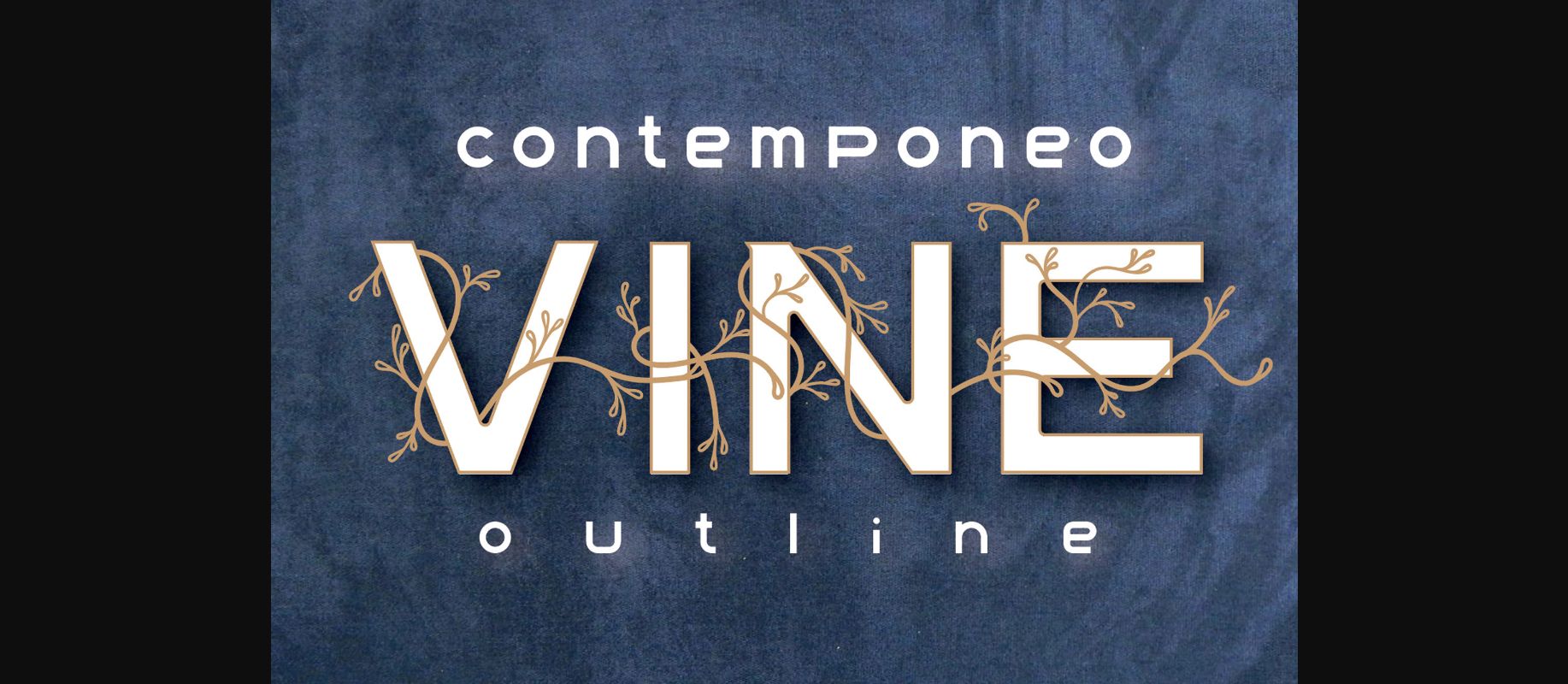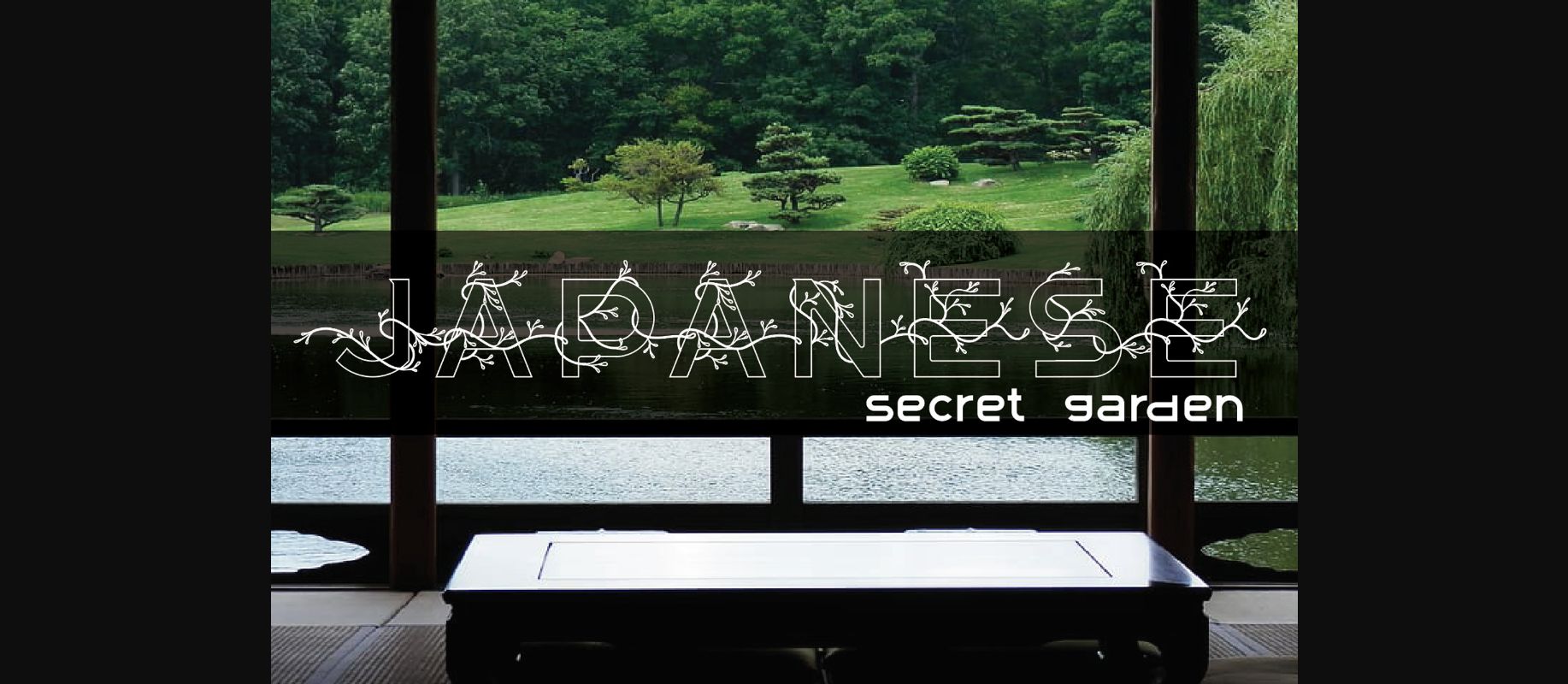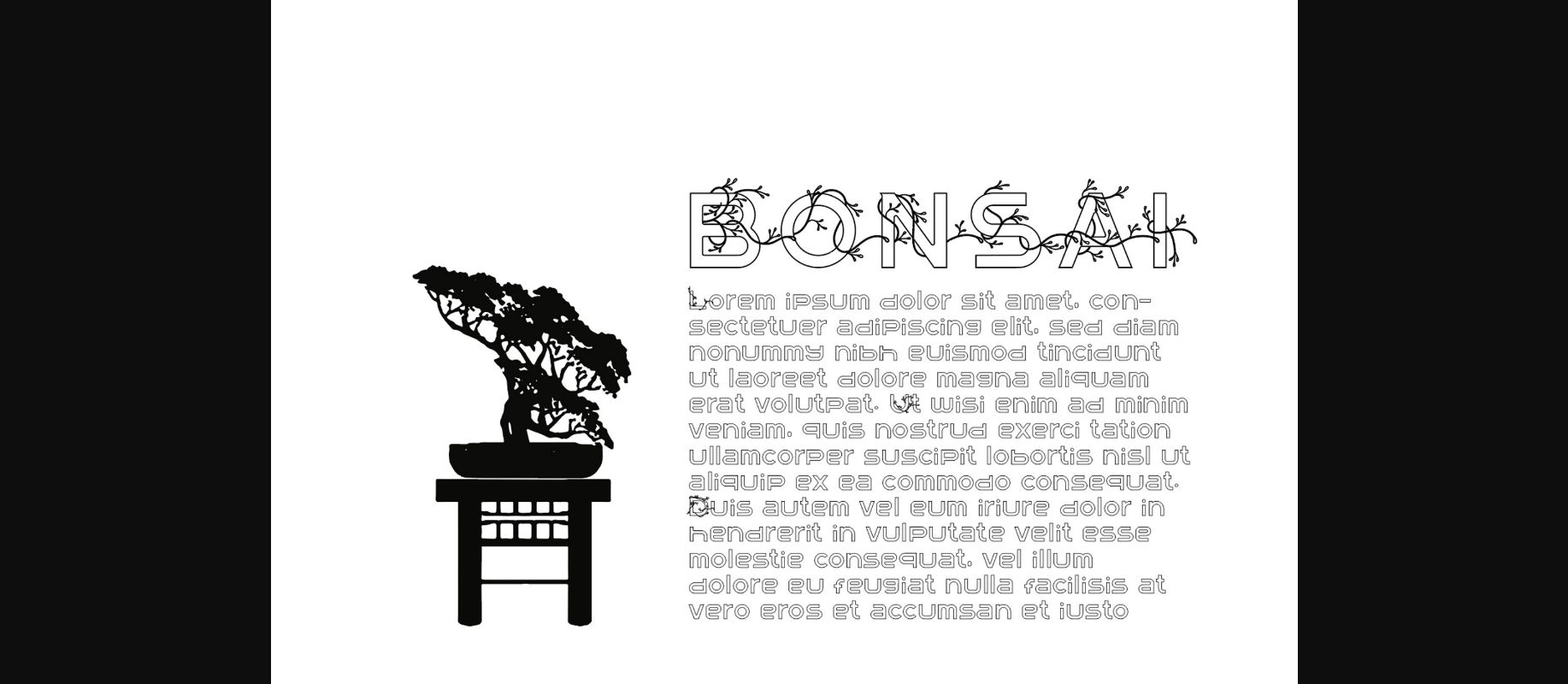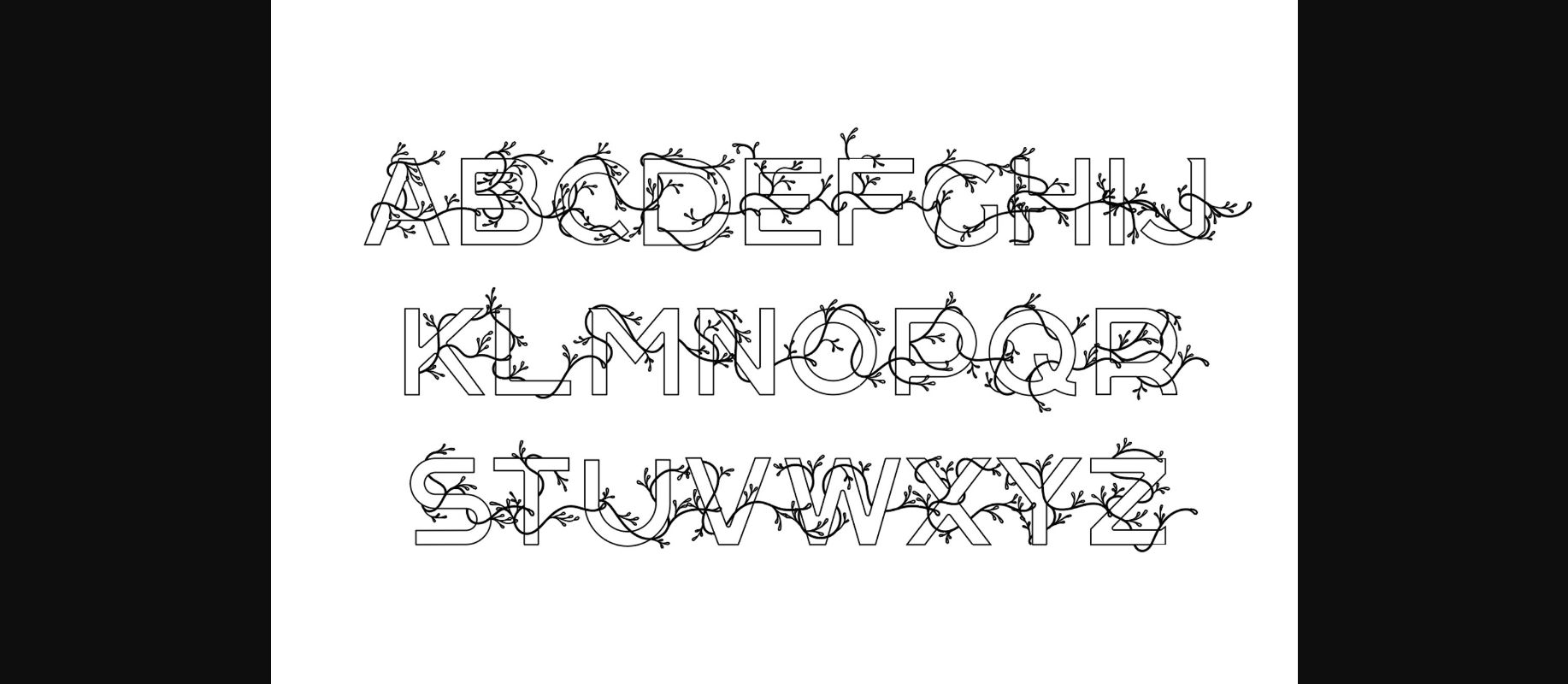
About Vine Font
Vine is a cool and uniquely designed decorative font. It will elevate a wide range of crafting ideas, from cards, to branding, labels and much more.